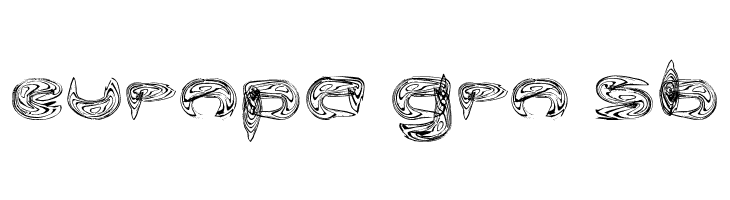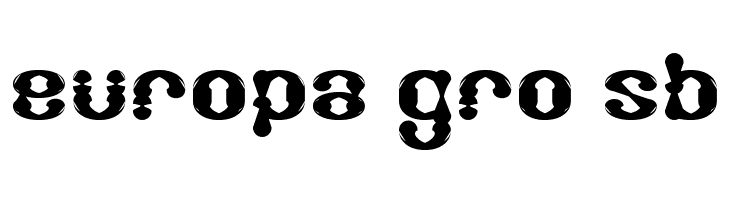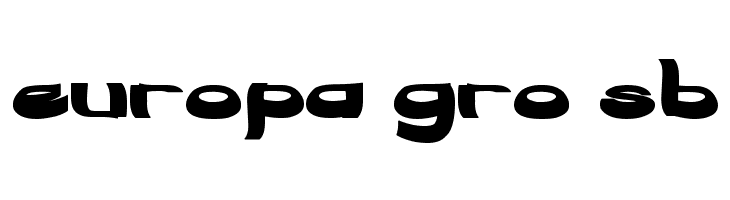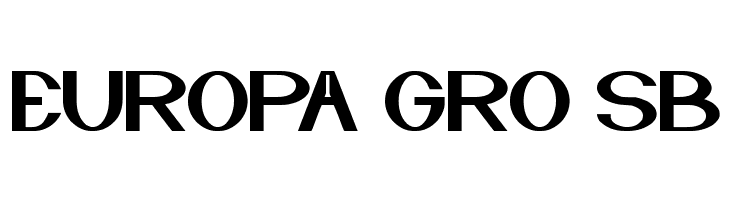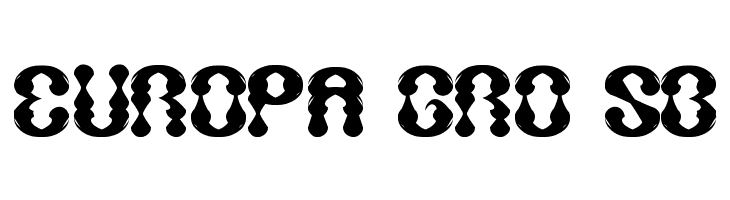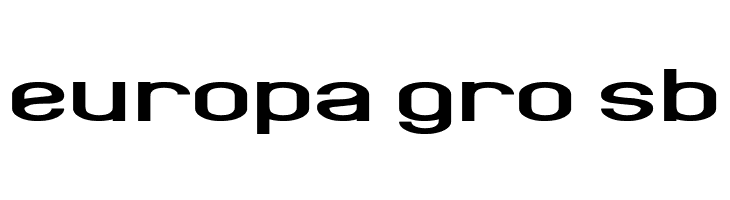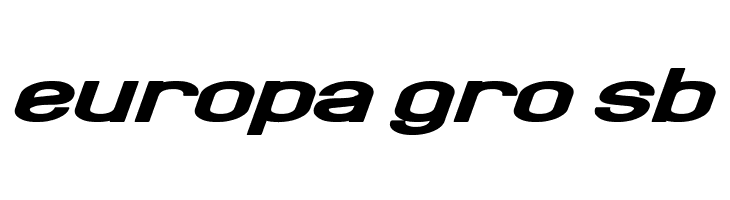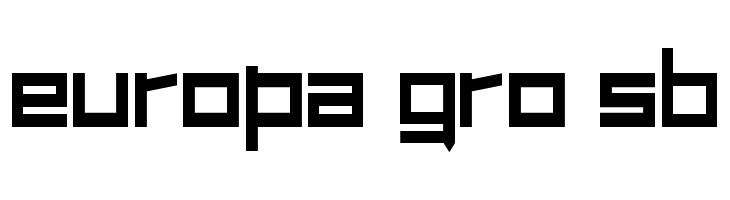
A decorative font with swirling, fluid-like patterns creating a dynamic and abstract appearance.
A bold, decorative font with rounded, water droplet-like shapes.
A playful, water droplet-inspired decorative font with bold, rounded characters.
A bold, geometric font with modern, angular design elements.
A bold, playful font with curved, cartoonish characters.